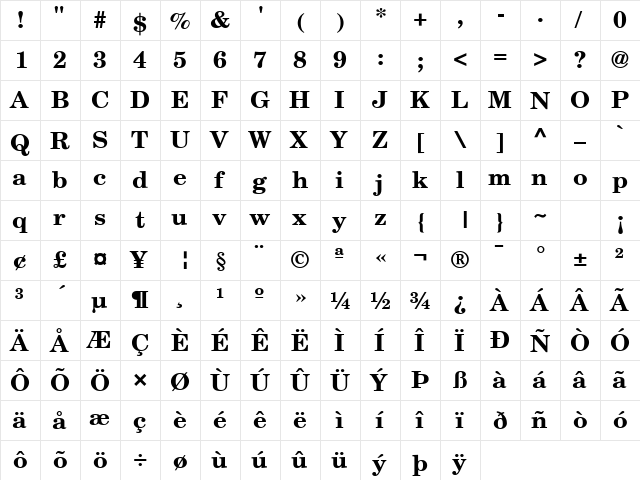
NewMilleniumSchlbkSH Bold
Design Context for NewMilleniumSchlbkSH Typeface
NewMilleniumSchlbkSH offers clean, dependable letterforms without strong stylistic allegiance, making it a practical choice for designers who need flexibility. The heavy weight commands attention and anchors typographic hierarchies.